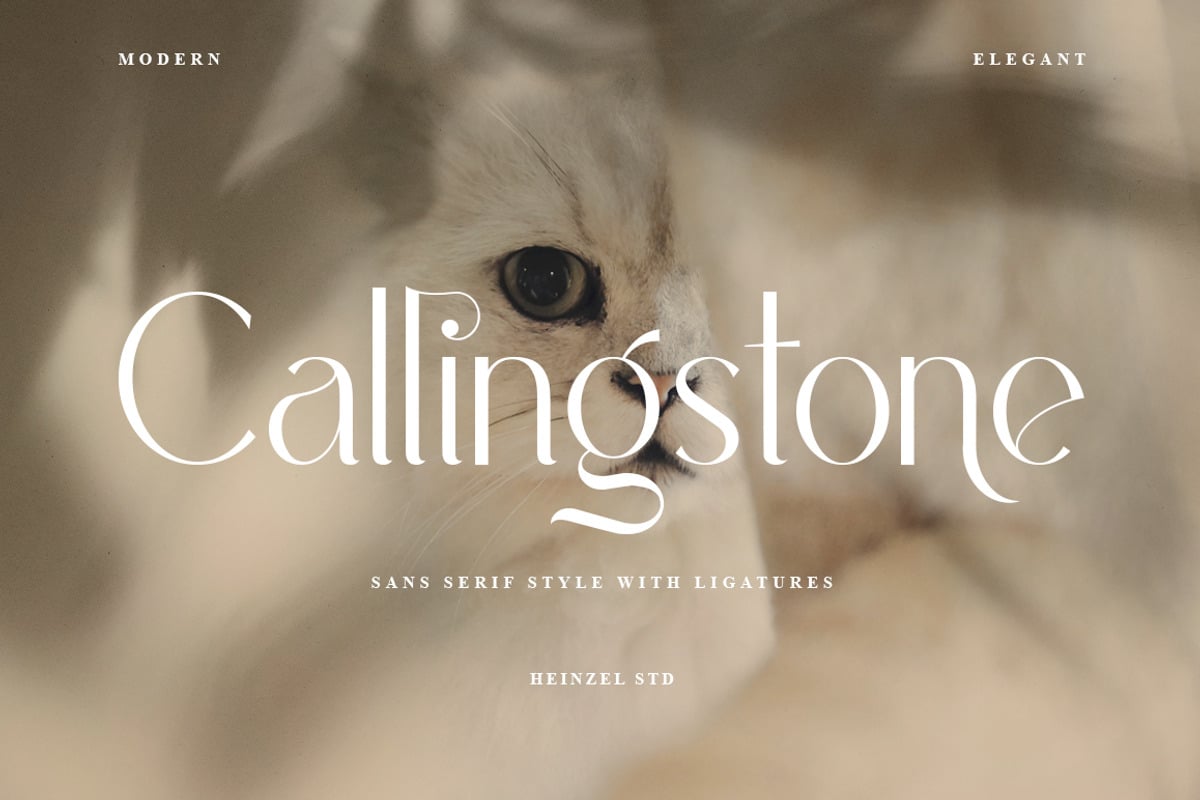
Callingstone Modern Sans Serif Font
Callingstone is the elegant, modern sans serif typeface your next luxury project has been waiting for.
With its ravishing style and refined character design, Callingstone brings instant sophistication to everything from wedding invitations and logos to editorial headlines and branded social media content. Fall for its beautiful letterforms and let them elevate your creative work.
Callingstone Features:
- Regular and Italic styles included
- Full character set: Uppercase, Lowercase, Numerals, and Punctuation
- Ligatures and Alternates for expressive typesetting
- Multilingual support for 21 languages: Afrikaans, Basque, Breton, Catalan, Danish, Dutch, English, Finnish, French, Gaelic (Irish, Scots), German, Icelandic, Indonesian, Irish, Italian, Norwegian, Portuguese, Saami (Southern), Spanish, Swahili, and Swedish
Perfect for wedding invitations, logos, branding, stationery, marketing materials, social media posts, and so much more.